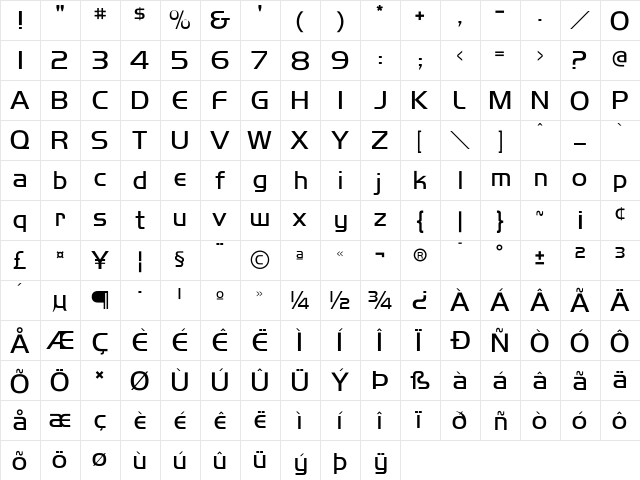
HighlandGothicLightFLF Regular
Design Context for HighlandGothicLightFLF Typeface
HighlandGothicLightFLF takes a clean, functional approach — its unadorned letterforms prioritise legibility and work reliably across screen and print environments. Its slender proportions lend an understated elegance to any composition.
Ideal for fashion and beauty branding, minimal editorial layouts, and premium digital experiences.
Font Pairing: Pair HighlandGothicLightFLF with a medium or bold serif for headlines — the weight contrast creates an elegant, high-end feel.
Pro Tip: Avoid using HighlandGothicLightFLF at very small sizes where its slender strokes can disappear. It performs best at medium to large sizes.